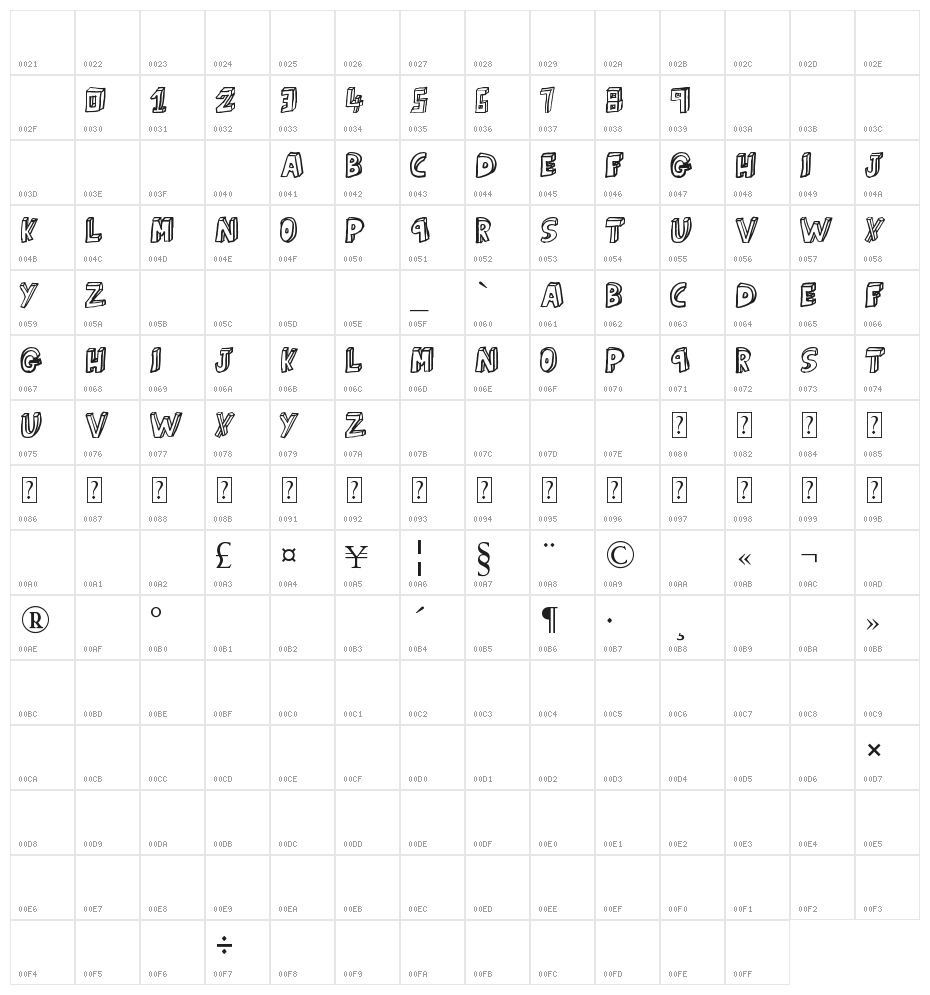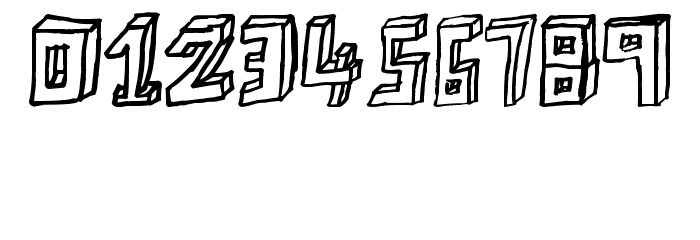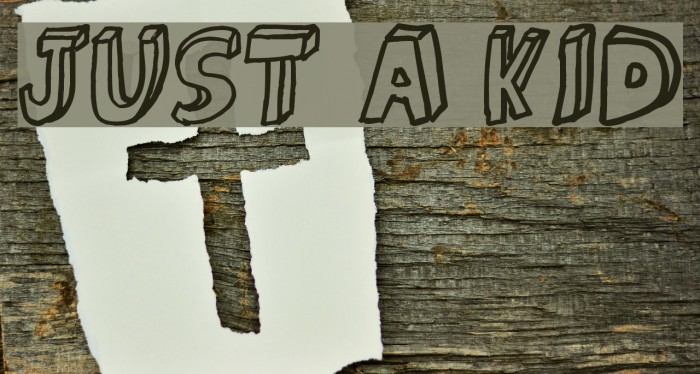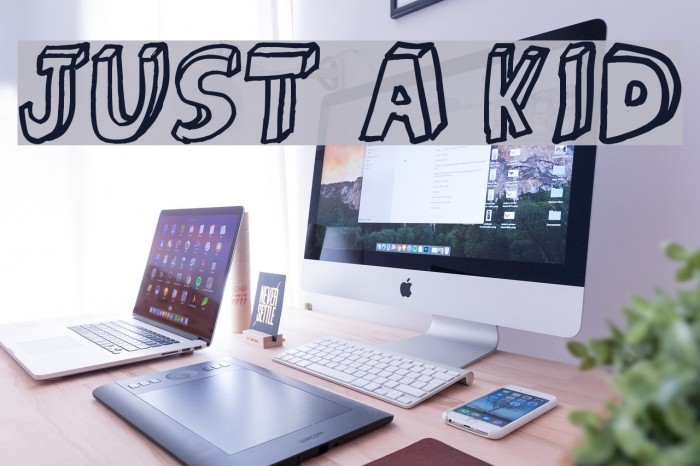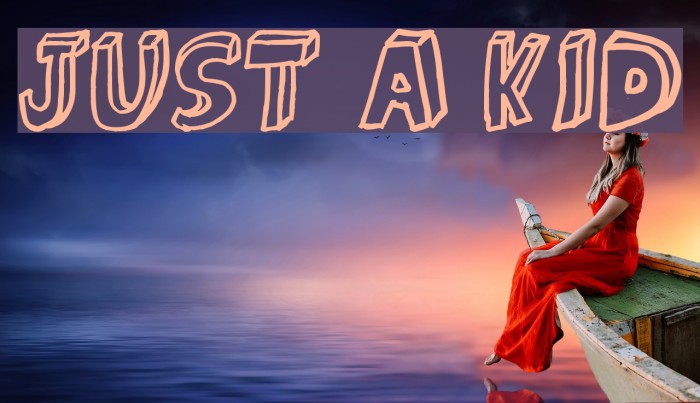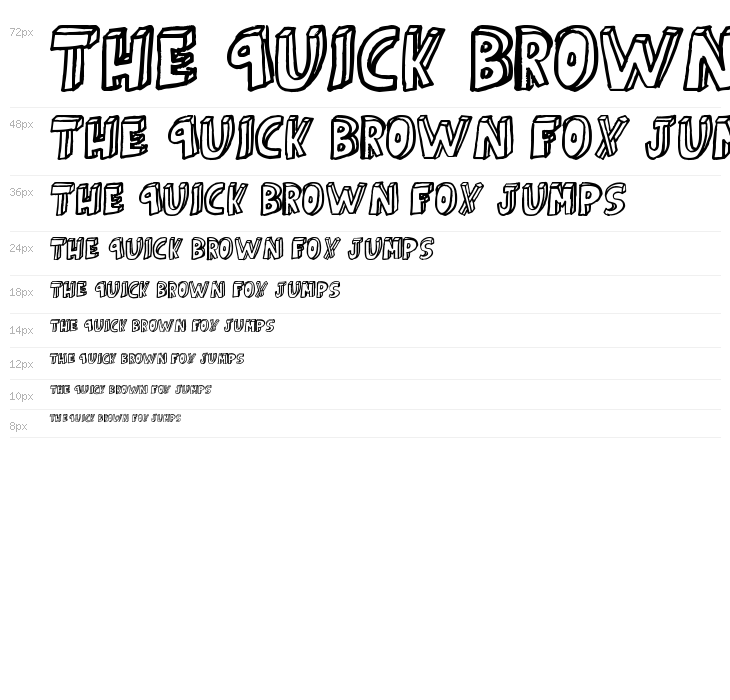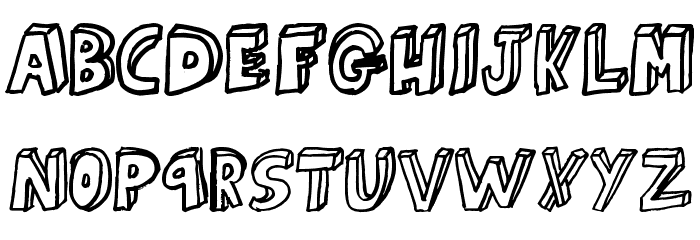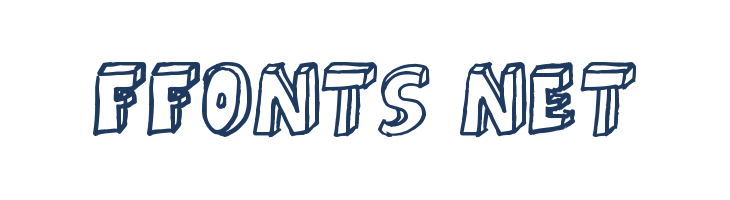
just a kid Font
just a kid Description
This font features a playful and bold style with a hand-drawn appearance. Each character is outlined with a thick, uneven stroke, giving it a casual and dynamic feel. The letters are slightly tilted and irregular, adding to the whimsical and informal aesthetic. The font maintains a consistent weight throughout, with a medium contrast between the thick outlines and the inner spaces. It is highly decorative, making it suitable for projects that require a fun and engaging visual impact.
| Overall Style | Playful, Hand-drawn |
| Proposed Projects | Ideal for children's books, comic strips, playful branding, and creative posters. |